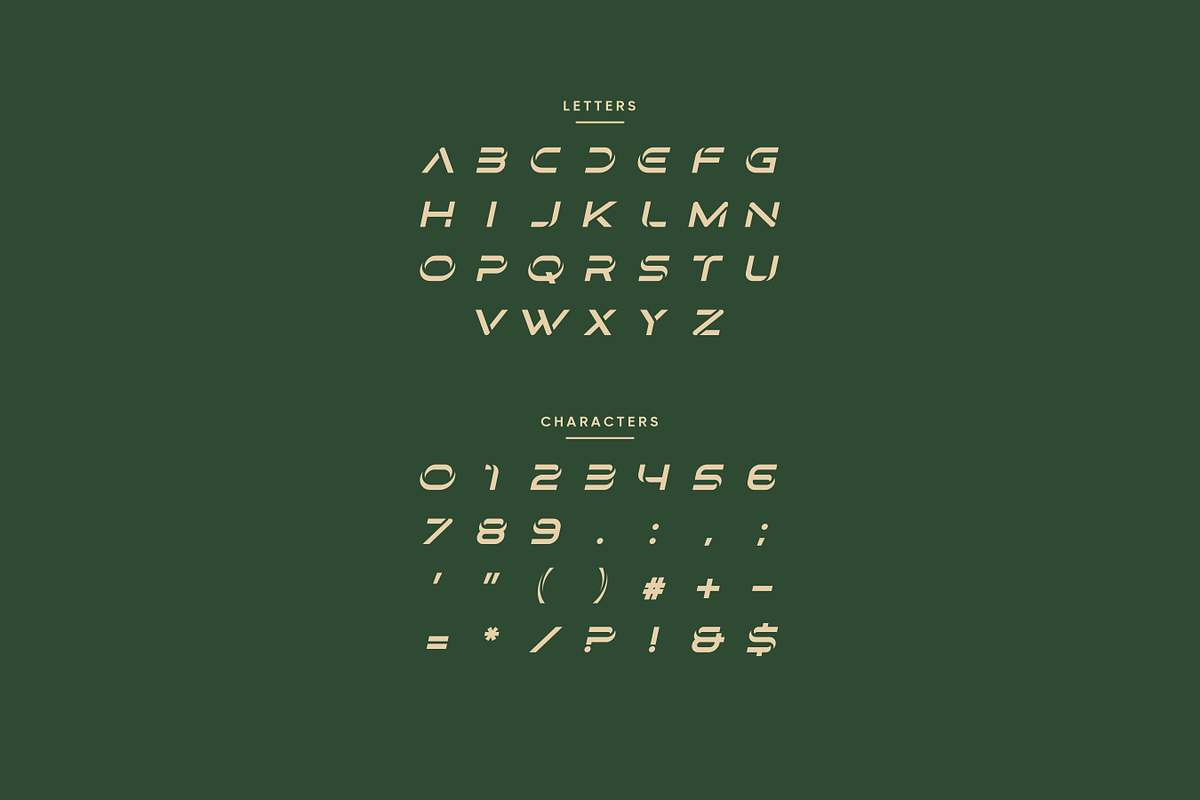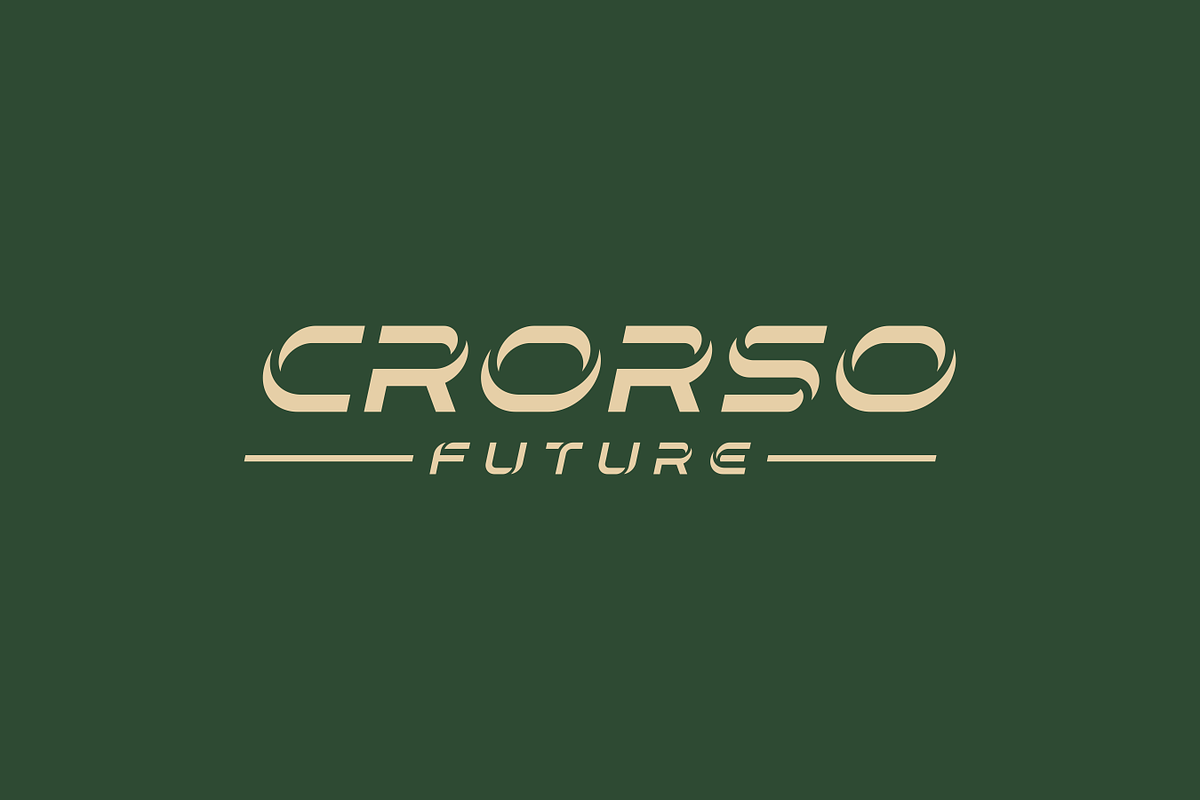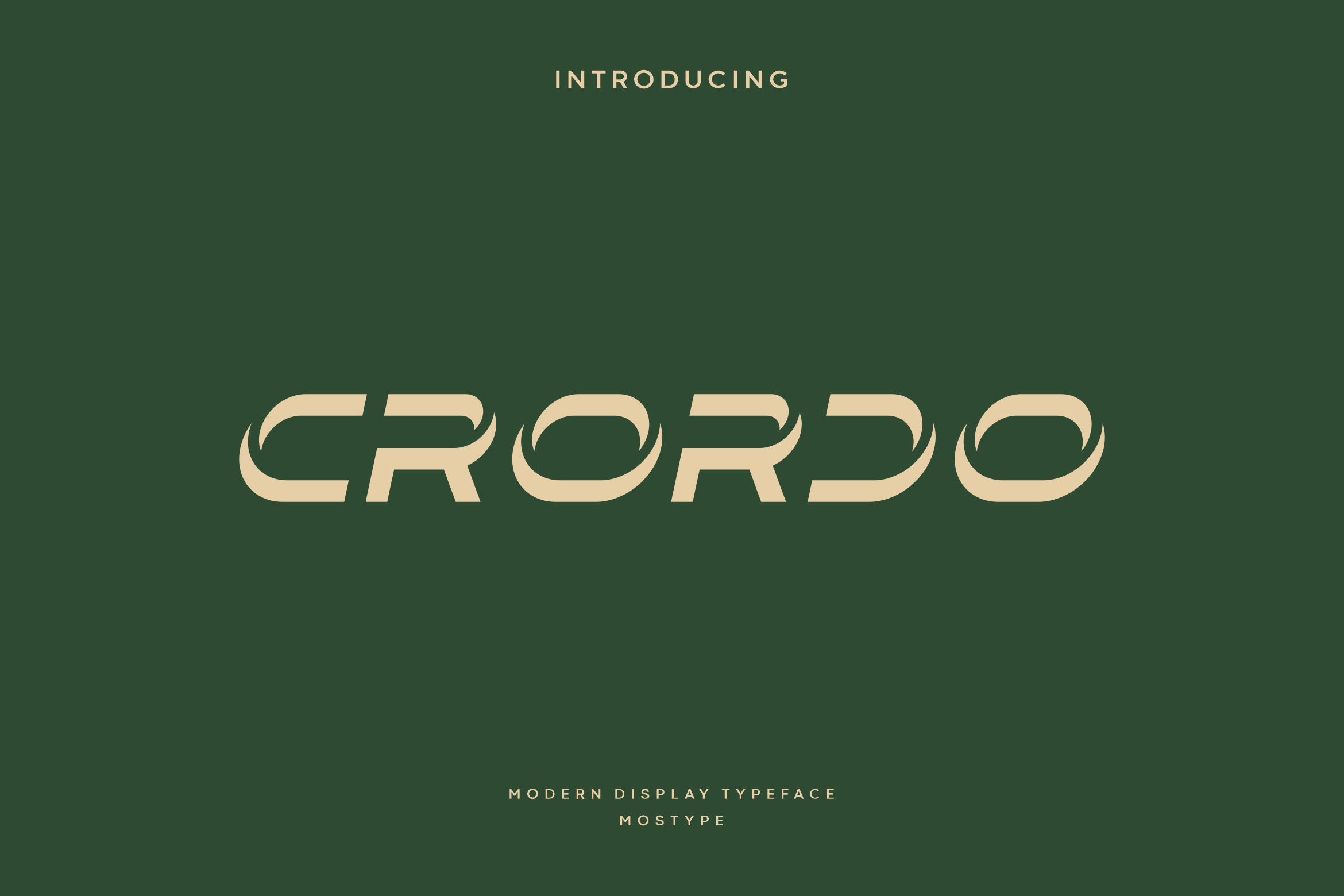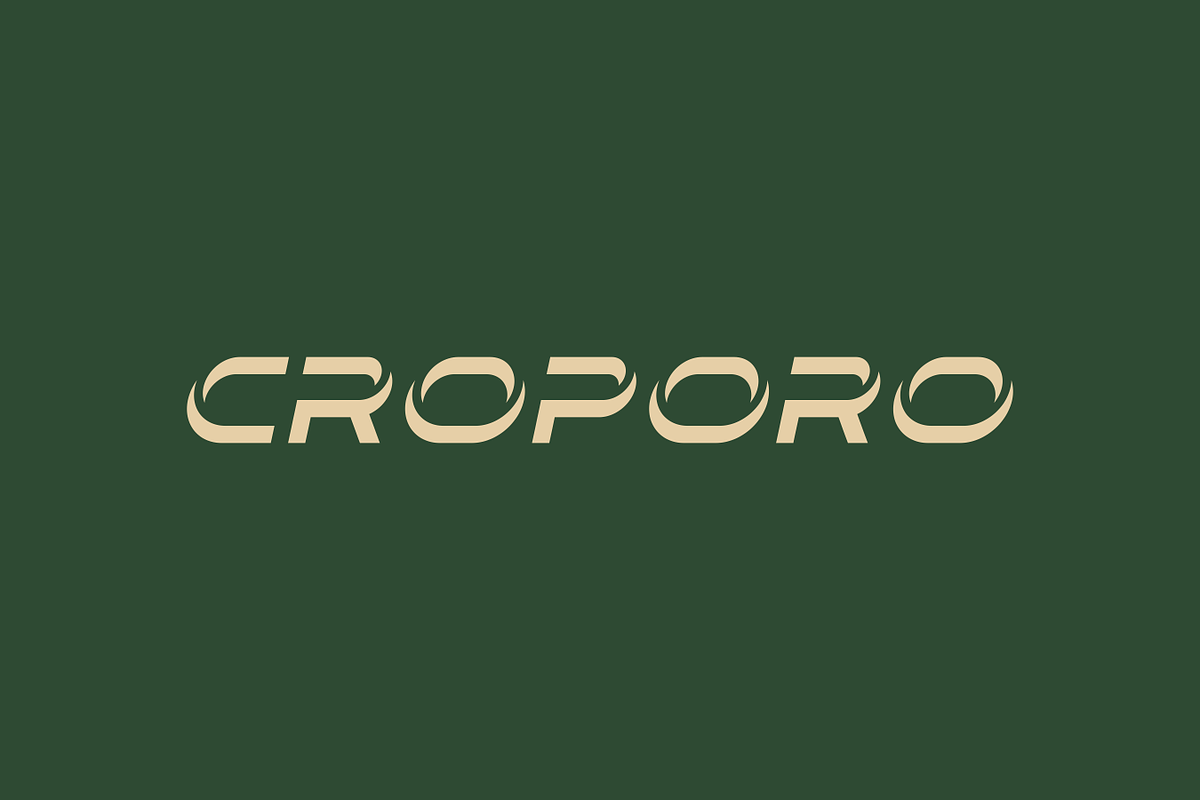
Crordo - Modern Display Typeface
Crordo is a modern sans serif typeface with brings science fiction style, modern and minimalist. It can appropriate for many logo, branding, headline, and title. Explore your creativity with famous fonts.